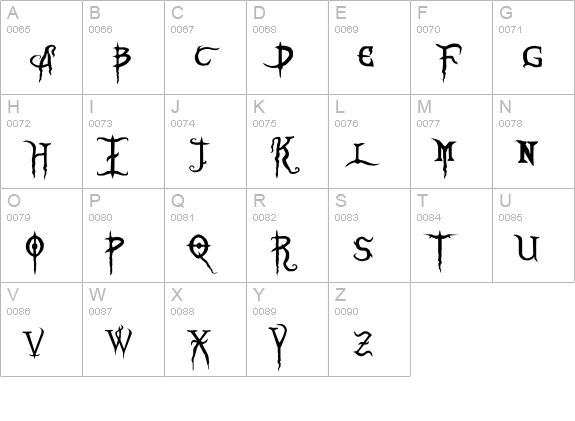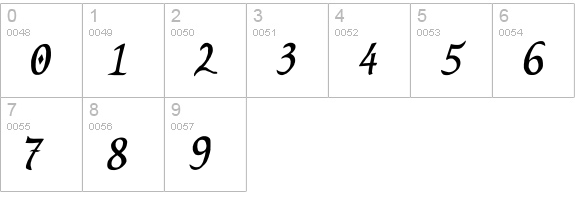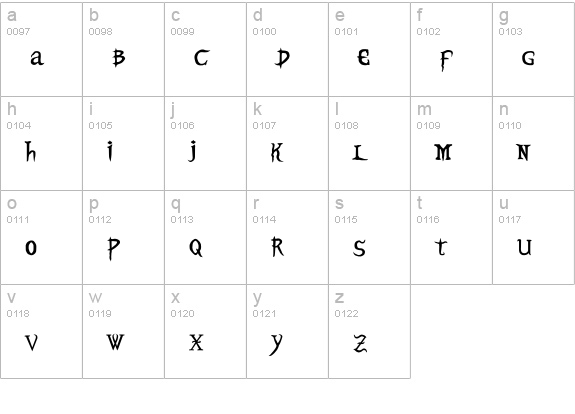
Blood Omen font is a bold and powerful typeface that exudes an air of mystique and darkness. Its intricate design and sharp edges give it a unique and captivating look that is perfect for projects that require a touch of drama and intensity. The font's detailed characters evoke a sense of ancient power and mysticism, making it an ideal choice for fantasy, horror, or gothic-themed designs. The best part about Blood Omen font is that it is completely free to download at FontsMarket.com. This means you can add this striking font to your collection without having to spend a dime. Whether you're working on a poster, logo, or website, Blood Omen font will make your text stand out and leave a lasting impression on your audience. Download it today and unleash the dark magic of Blood Omen font in your projects.